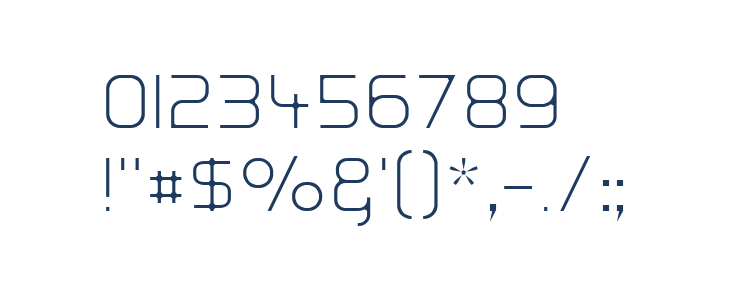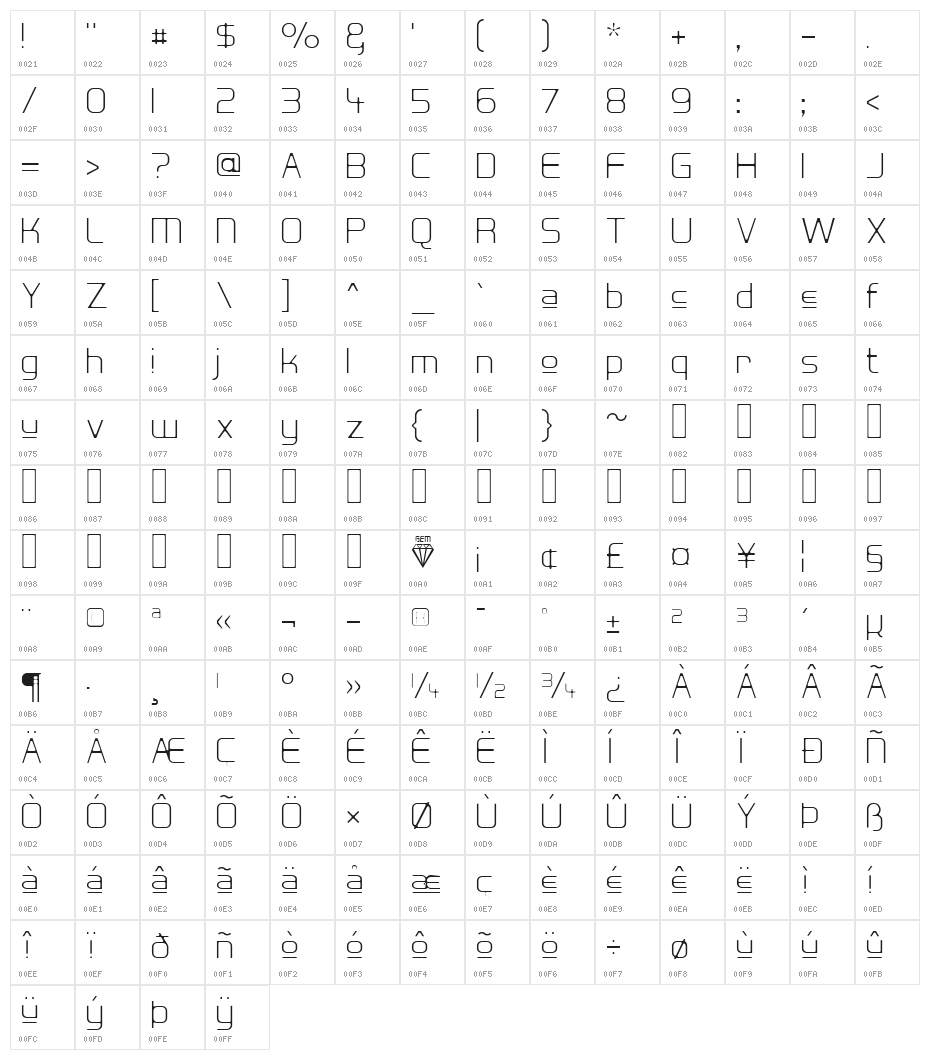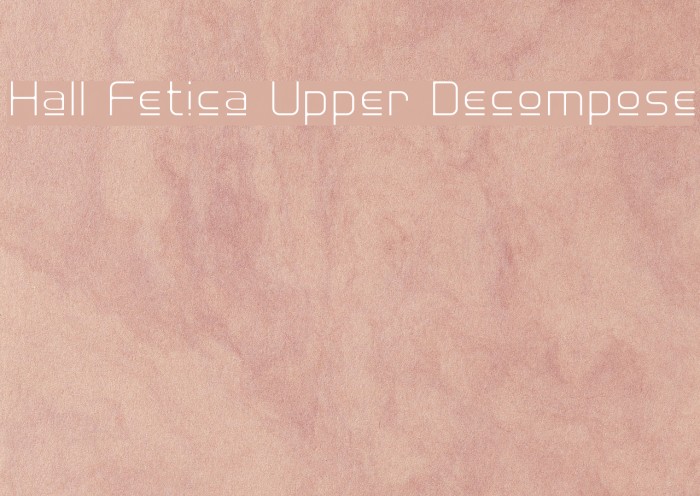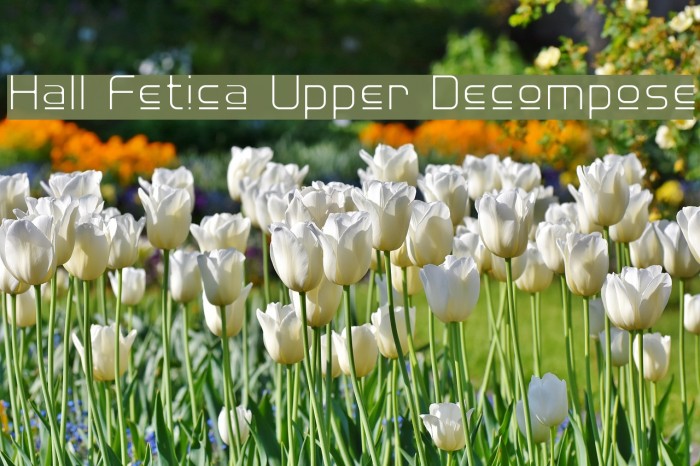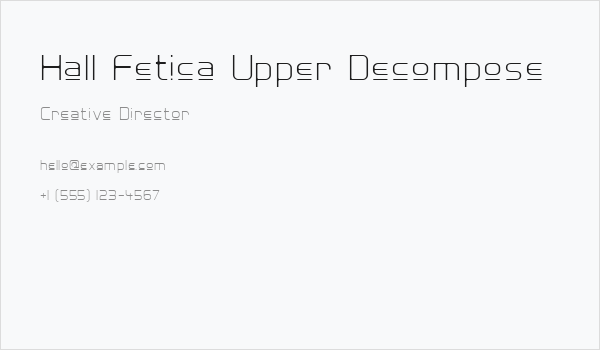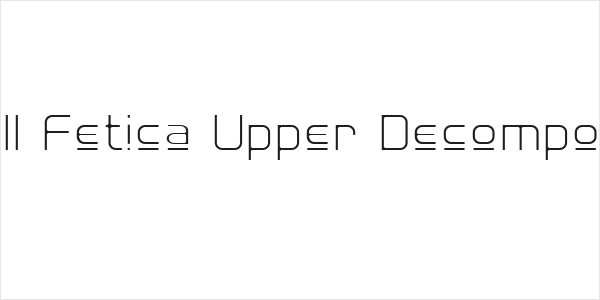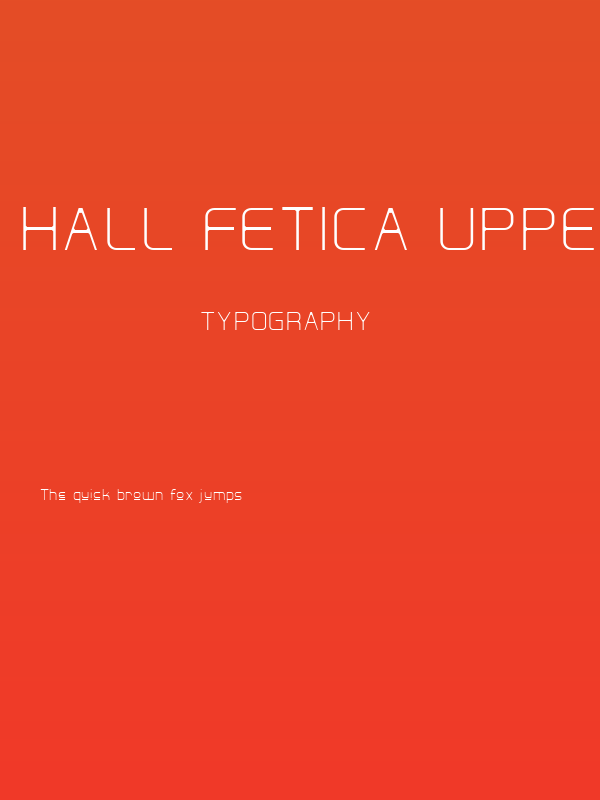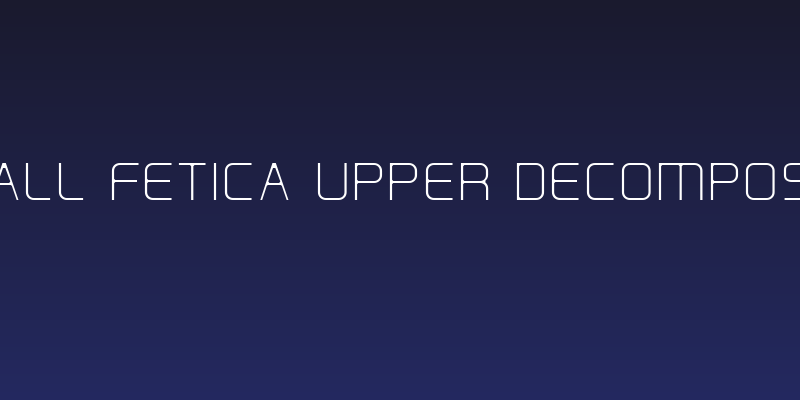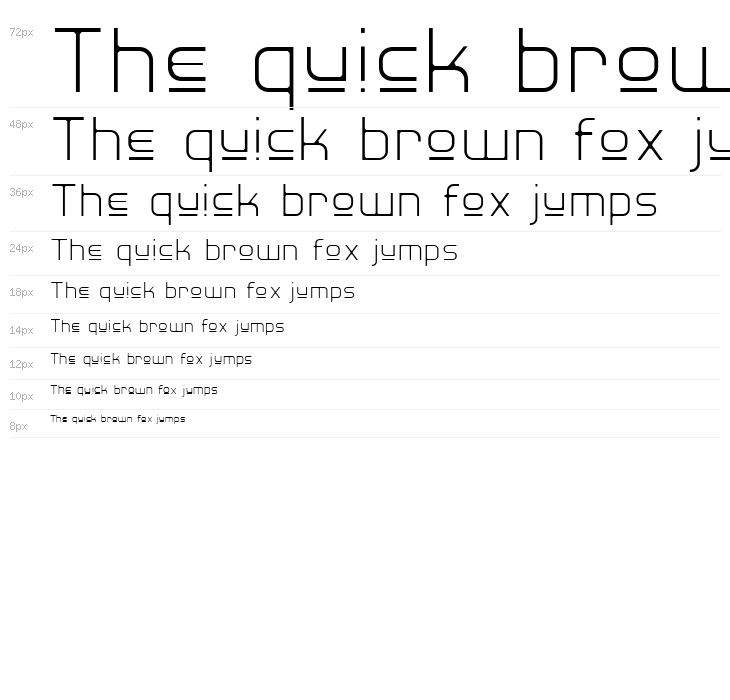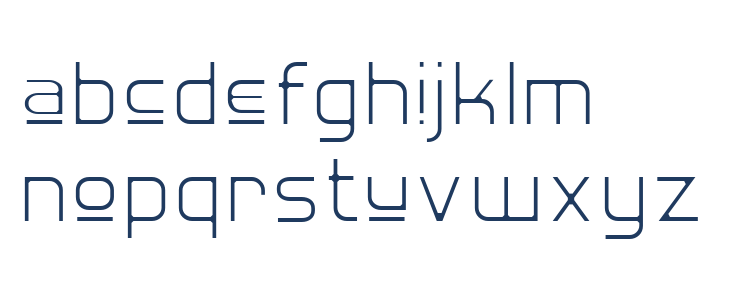
Hall Fetica Upper Decompose Font
Hall Fetica Upper Decompose Description
This font features a modern and geometric design with clean, straight lines and rounded corners. The uppercase and lowercase letters maintain a consistent height, giving it a uniform appearance. The numerals are distinct and easy to read, with a similar geometric style. Special characters are well-integrated, maintaining the overall aesthetic. The font has a futuristic feel, suitable for contemporary designs. Its simplicity and clarity make it versatile for various applications, while the unique character shapes add a touch of creativity.